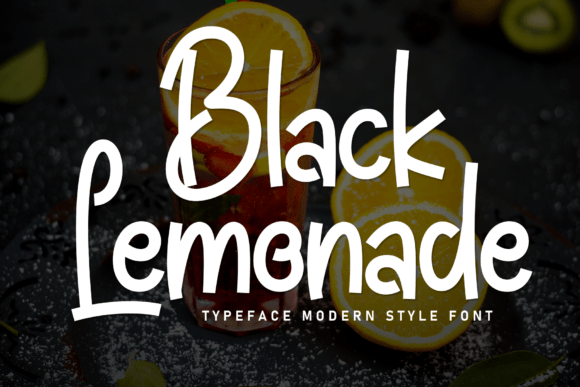
Adding a Personal Touch to Your Designs
Who hasn’t scribbled out a heartfelt message in a favorite notebook, or poured their emotions onto a handwritten card for a loved one? There’s something special about the imperfections and quirks of a handwritten note that speaks directly to our hearts. As designers, we’re always on the lookout for ways to capture that same essence in our digital creations.
Enter the Black Lemonade Font, a charming display typeface that embodies the warmth and personality of a handwritten message. Perfect for adding a touch of whimsy to wedding invitations, affectionate cards, or any design that needs a little extra love, this font is a designer’s best friend. Its endearing charm and sweet appeal make it an invaluable asset in any creative project, elevating your work with a delightful dash of personality.
Black Lemonade Font Key Features
- Unique Characteristics: The Black Lemonade Font features a unique blend of modern and vintage elements, with a bold and edgy aesthetic that is perfect for making a statement in graphic design and digital art.
Black Lemonade Font Review
Overall, I think the Black Lemonade font is a unique and stylish addition to any design project. Here are some things that really work well:
- ✨ The font’s bold, modern aesthetic is perfect for making a statement in logos, headlines, and other attention-grabbing text.
- ✨ The font’s versatility allows it to be used in a variety of settings, from fashion and beauty to tech and gaming.
- ✨ The font’s clean lines and lack of clutter make it easy to read and understand, even at smaller font sizes.
- ⚠️ The font may not be suitable for text-heavy projects, as its boldness can make it difficult to read large blocks of text.
- ⚠️ The font’s unique style may not appeal to all audiences, and some users may find it too flashy or overwhelming.
Overall, I think the Black Lemonade font is a great choice for designers who want to add a touch of modern style to their projects. With its bold aesthetic and versatility, it’s a great option for logos, headlines, and other attention-grabbing text. However, it may not be the best choice for text-heavy projects or users who prefer a more conservative font style.
Getting the Most Out of Black Lemonade Font
Use Black Lemonade Font for designs that require a modern, edgy feel. This font is perfect for creating a bold statement or adding a touch of sophistication to your designs.
Black Lemonade Font is commonly used in:
– Fashion and lifestyle designs
– Graphic novels and comic books
– Advertising and marketing materials
– Editorial and publishing designs
Alternatives to Black Lemonade Font
Montserrat is a modern sans-serif font designed by Julieta Ulanovsky. It’s a versatile font suitable for a wide range of applications, from body text to headings. Montserrat has a similar industrial feel to Black Lemonade Font but with a more open and airy appearance.
Inter is a modern sans-serif font designed by Rasmus Andersson. It’s designed to work well in digital products and has a clean, minimalistic aesthetic. Inter is similar to Black Lemonade Font in terms of its clean lines and modern feel, but it has a more neutral tone and is less dramatic.
Work Sans
Work Sans is a modern sans-serif font designed by Wei Huang. It’s a highly legible font suitable for body text and is designed to work well in a variety of contexts. Work Sans has a similar industrial feel to Black Lemonade Font but with a more rounded and approachable appearance.